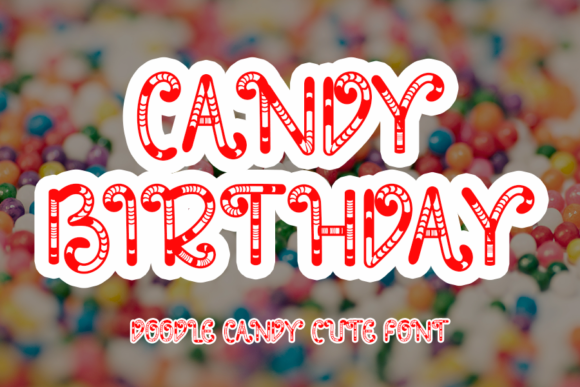
Embark on a typographic adventure with Candy Birthday Font, a display font that exudes joy and individuality. Picture this: a school project or a children's craft adorned with this whimsical font. Watch as it breathes life into your creations, transforming them into vibrant expressions of imagination.
Candy Birthday Font is the ultimate choice for adding a touch of magic to your designs. Its playful, hand-crafted charm will captivate your audience, leaving them mesmerized by its enchanting aura.
With Candy Birthday Font, you'll have the power to turn ordinary words into extraordinary works of art. Create eye-catching wedding welcome signs that set the tone for a joyous celebration. Design invitations that spark curiosity and excitement, ensuring that your guests eagerly anticipate the special day.
The versatility of Candy Birthday Font doesn't stop there. It's the perfect companion for crafting personalized greeting cards, whether it's a heartfelt message for a loved one or a warm holiday wish. Imagine the delight on their faces as they receive a card adorned with this enchanting font, a tangible token of your affection.
But it's not just about aesthetics. Candy Birthday Font is also a practical choice for creating school projects that are both visually appealing and informative. Let your child's imagination run wild as they use this font to craft presentations, posters, and reports that are sure to impress teachers and classmates alike.
With Candy Birthday Font, you'll unlock a world of creative possibilities, transforming your designs into captivating masterpieces. Its playful spirit and enchanting charm will leave a lasting impression on your audience, making your words dance off the page and into their hearts.